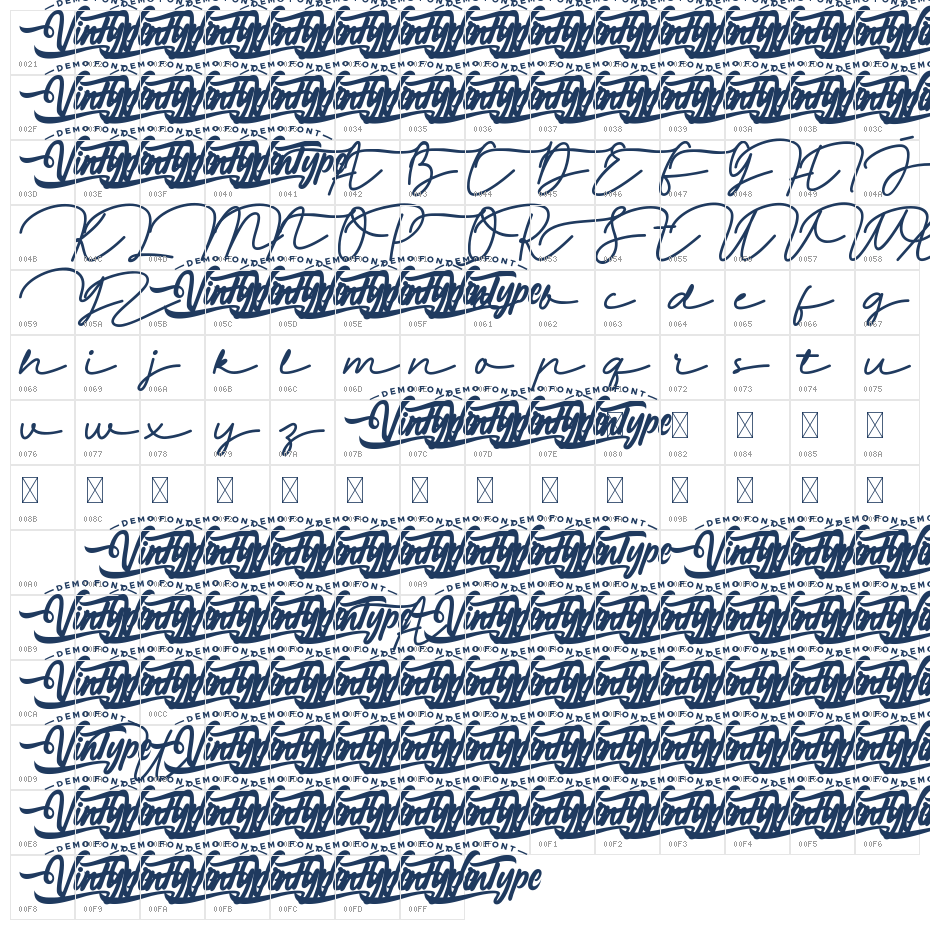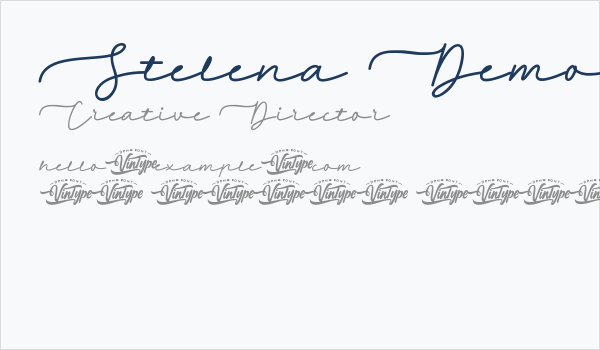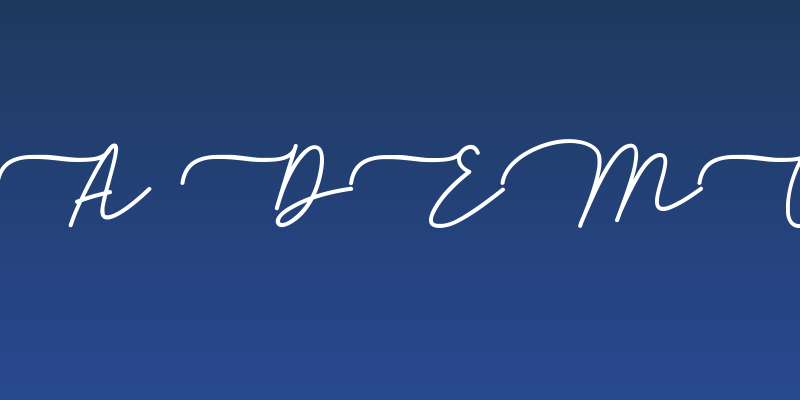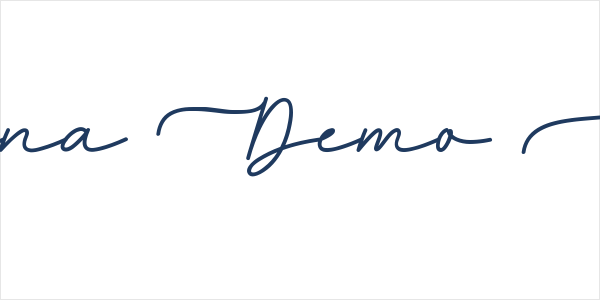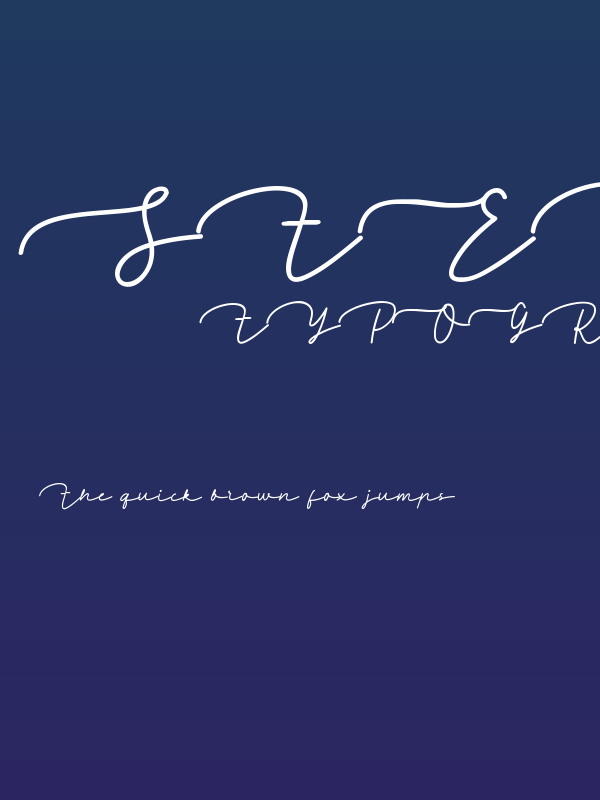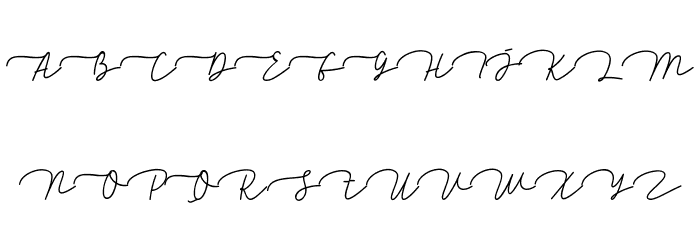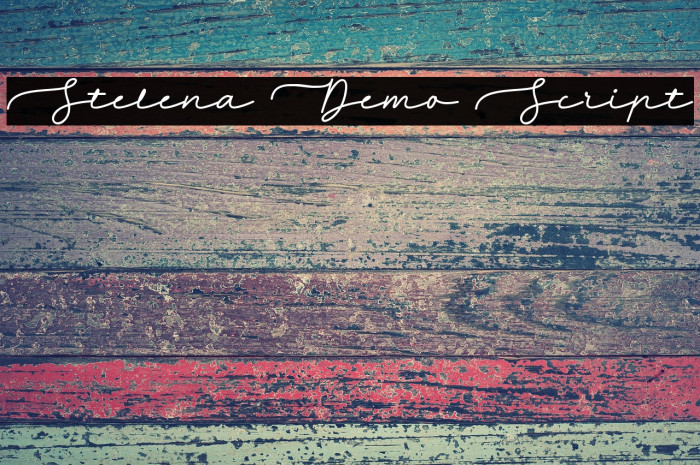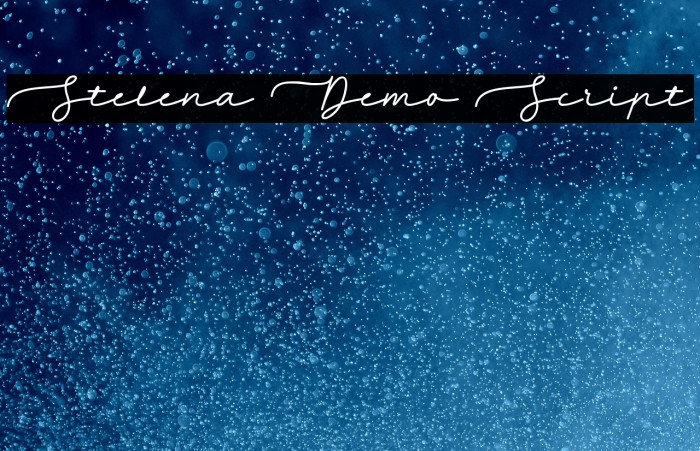
Stelena Demo Script Font
Stelena Demo Script Description
A cursive, handwritten style font with elegant, flowing strokes and varying line thicknesses, suitable for decorative and personal use.
| Overall Style | Elegant, Personal, Decorative |
| Use Case | Invitations, greeting cards, logos, branding, personal projects. |